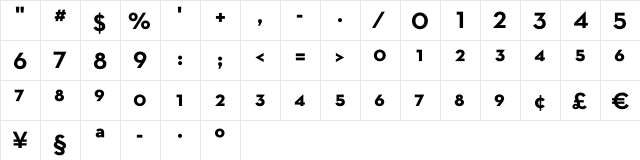
Neutra Text Frac Bold
Bold ·  Christian Schwartz ·
Design Context for Neutra Text Frac Typeface
Neutra Text Frac takes a measured approach to typography — its balanced proportions and neutral character make it a reliable workhorse for both digital and print work. Its bold stroke weight gives it real presence on the page.